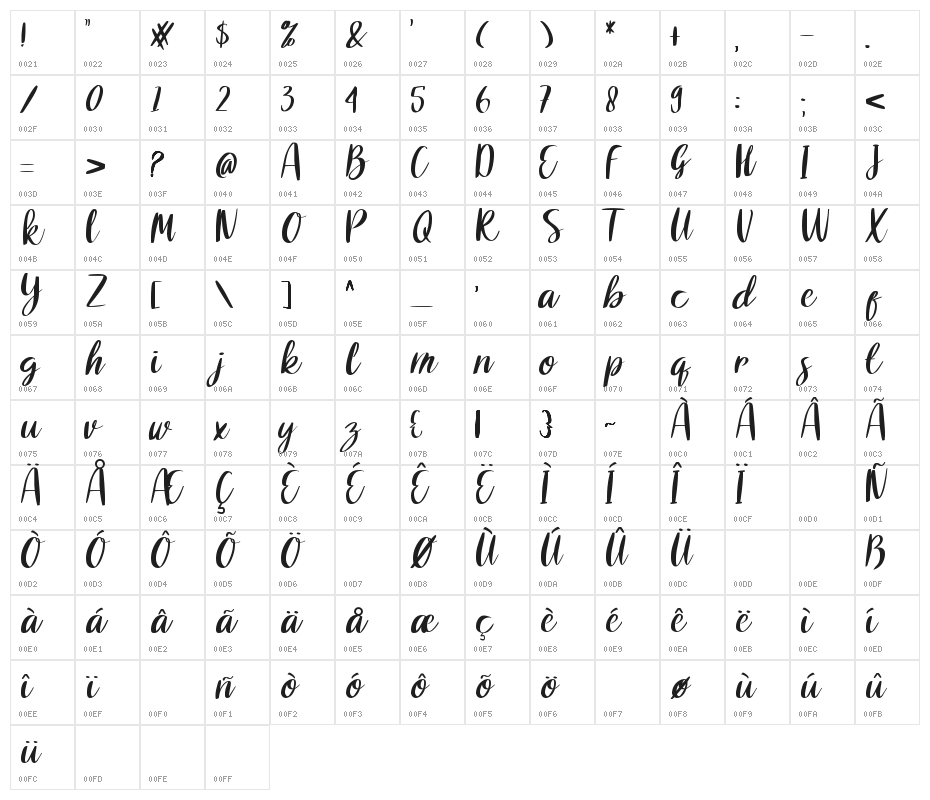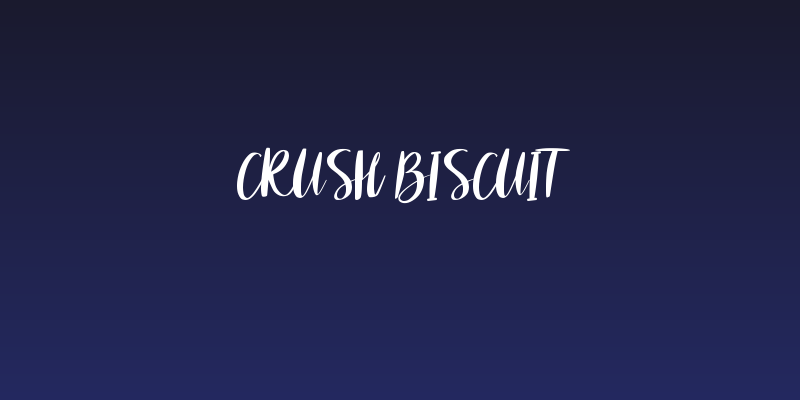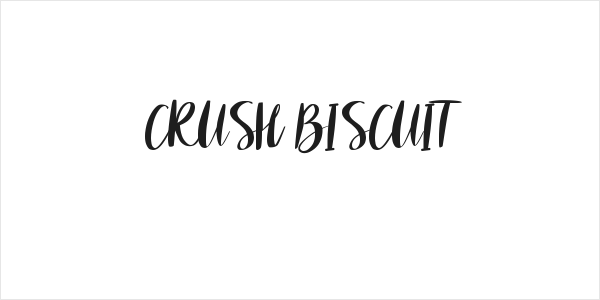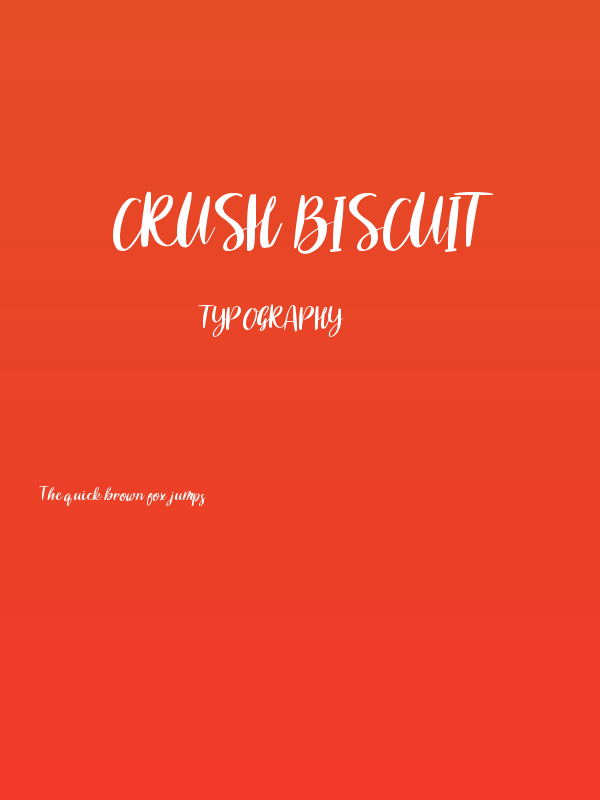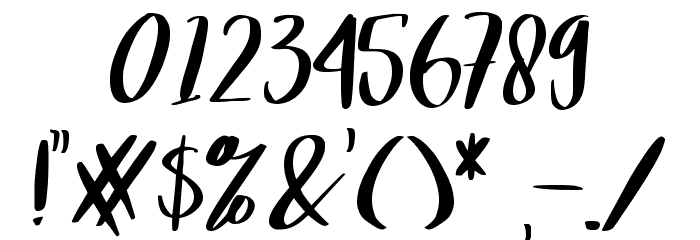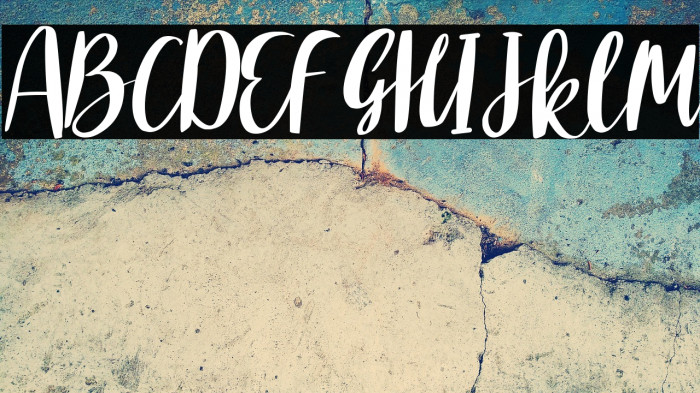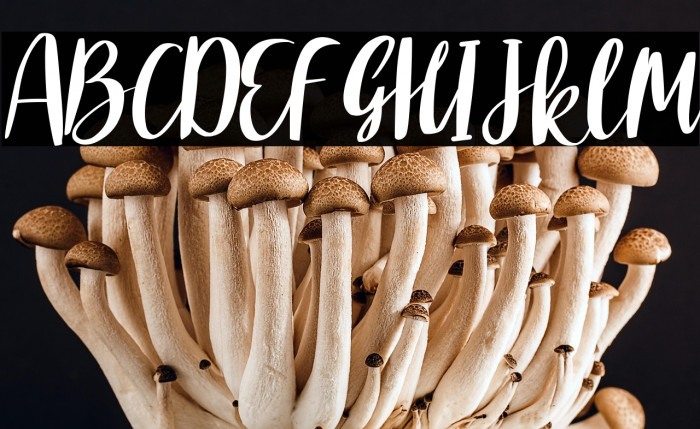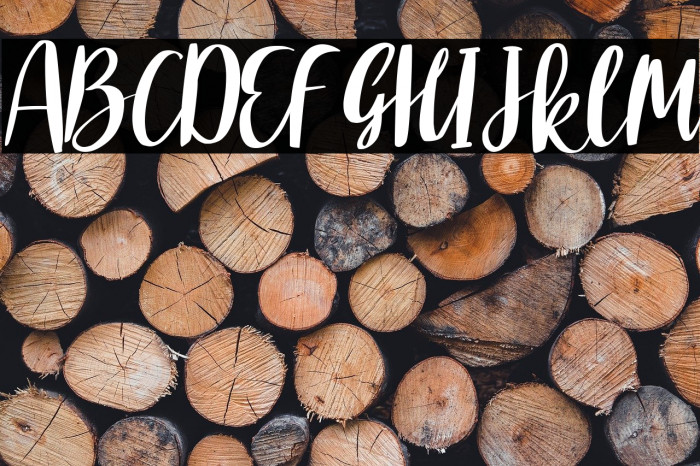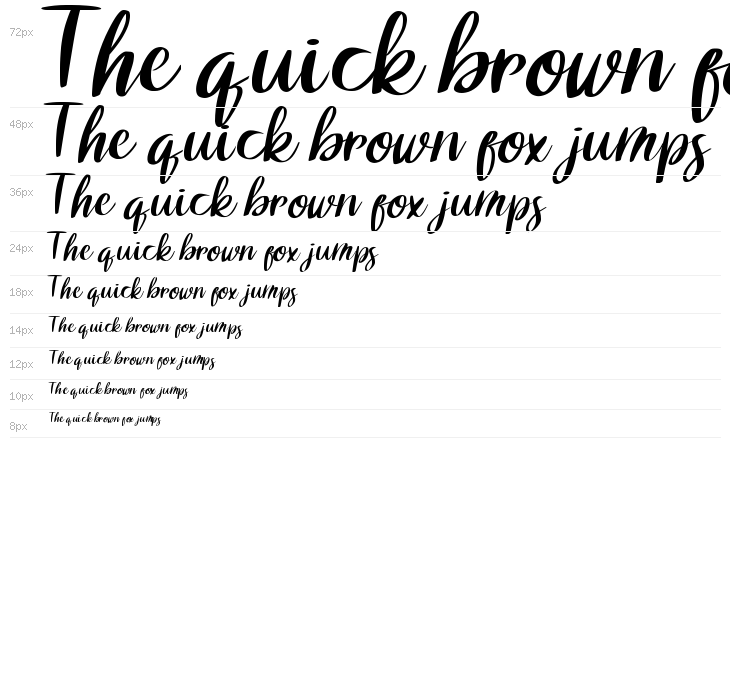
CRUSH BISCUIT Font
CRUSH BISCUIT Description
This font features a dynamic and expressive script style, characterized by its fluid and flowing letterforms. The strokes are bold and confident, with a slight slant that adds a sense of movement and energy. The uppercase letters are particularly striking, with their sweeping curves and elegant loops. The lowercase letters maintain a consistent style, offering a harmonious blend with the uppercase. The numerals and special characters are crafted with the same attention to detail, ensuring a cohesive look across all elements. This font exudes a modern and artistic flair, making it suitable for creative and eye-catching designs.